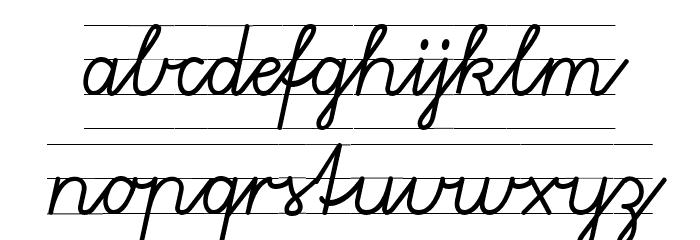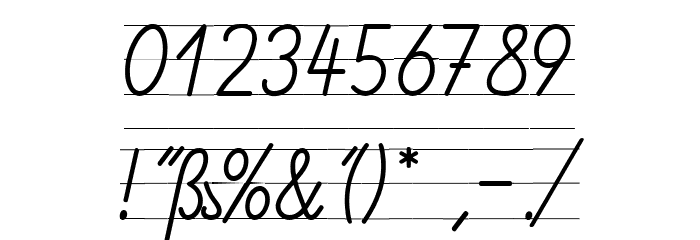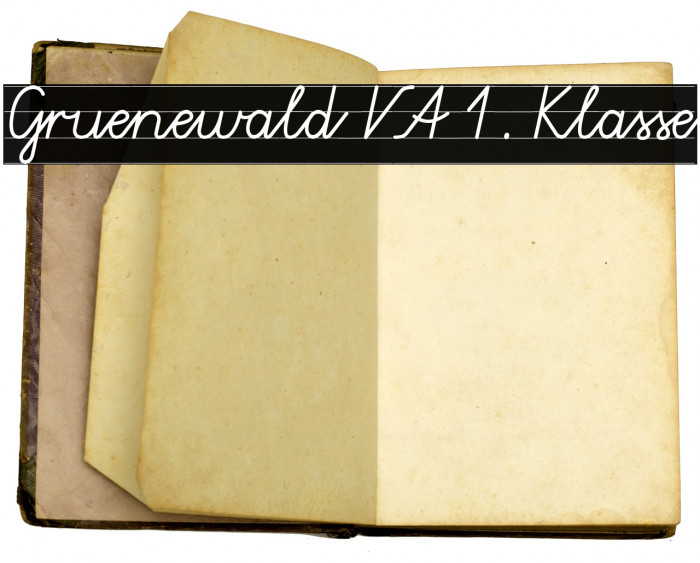
Gruenewald VA 1. Klasse Font
This elegant script font features a classic cursive style with smooth, flowing lines that mimic traditional handwriting. The uppercase letters are slightly more elaborate, with graceful loops and curves, while the lowercase letters maintain a consistent, connected flow. The numbers and special characters are designed to complement the alphabet, maintaining the same fluidity and style. This font is ideal for projects that require a personal touch, such as invitations, greeting cards, or any design that benefits from a handwritten appearance.
A classic cursive script font with smooth, flowing lines.
- Proposed Projects: Ideal for invitations, greeting cards, personal letters, and elegant branding.
- Category: Script
- Overall Style: Classic
- Use Case: Headlines, Invitations, Personal letters